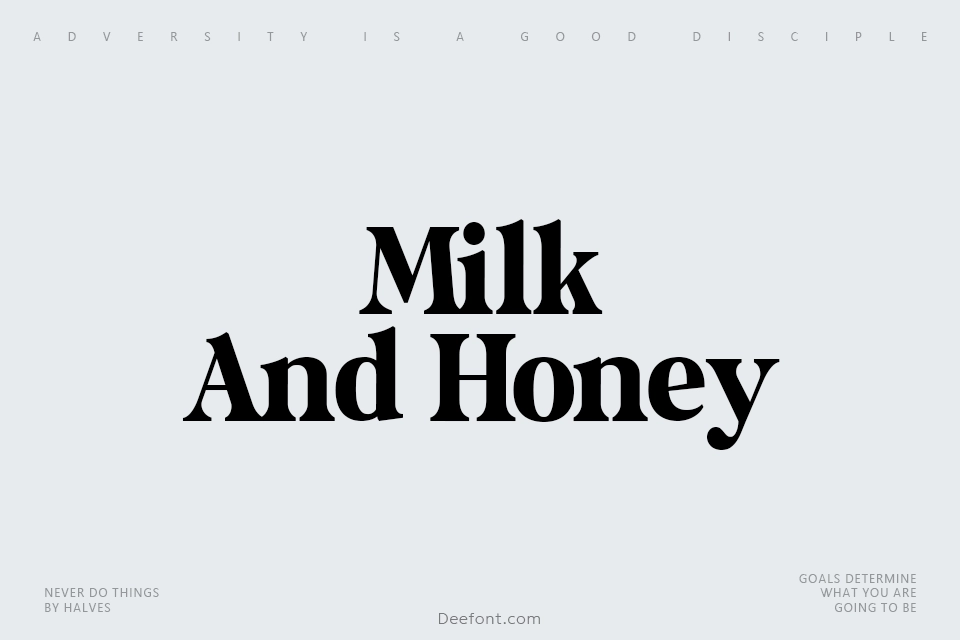
Milk And Honey Font
Milk And Honey is a sophisticated modern-vintage serif font that blends classical aesthetics with contemporary elements. Featuring exquisite craftsmanship and versatile design, it offers extensive alternate characters and ligatures through OpenType features. The font delivers chic and elegant typography suitable for distinguished designs across various creative projects, from print to digital applications.